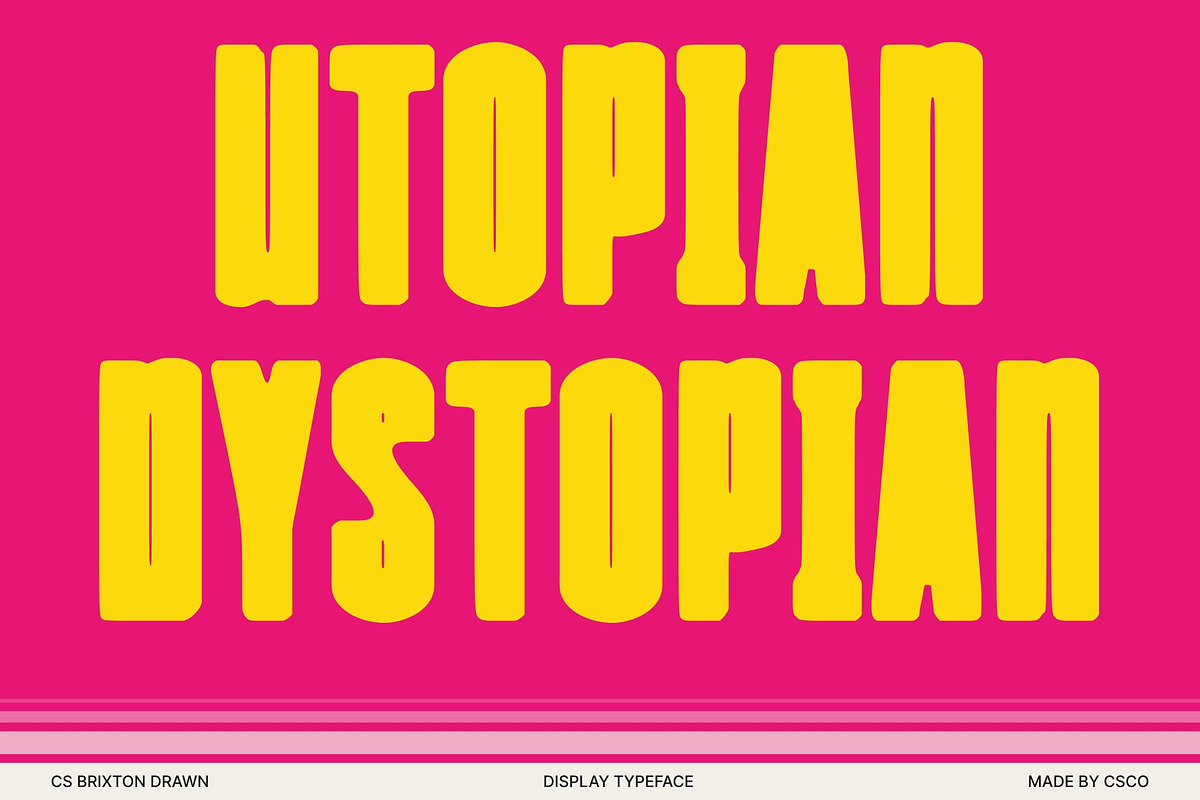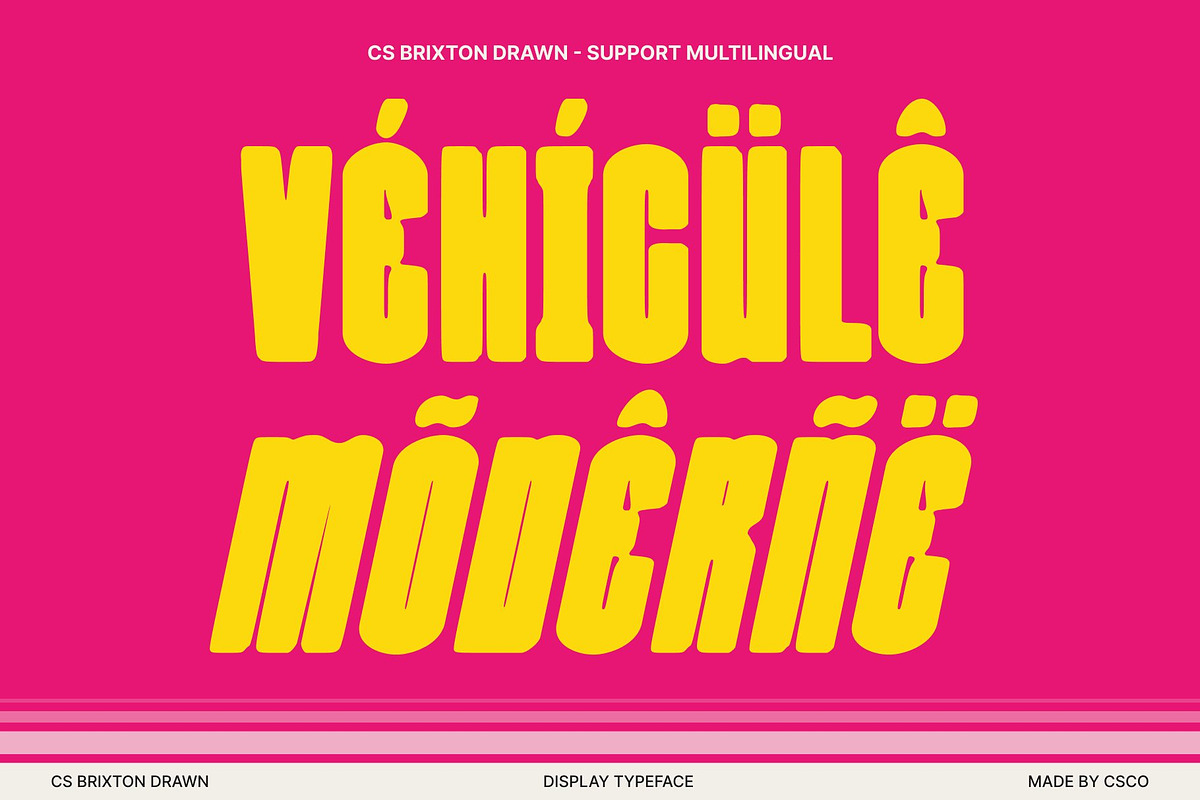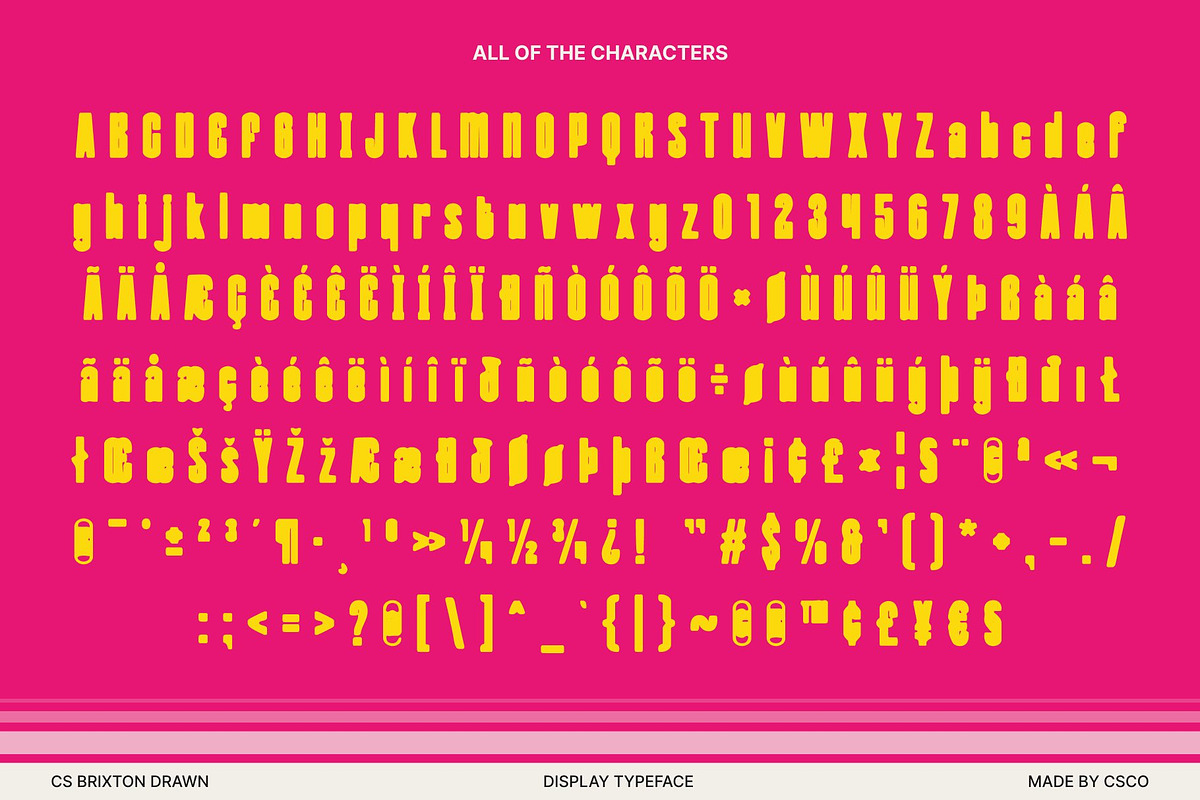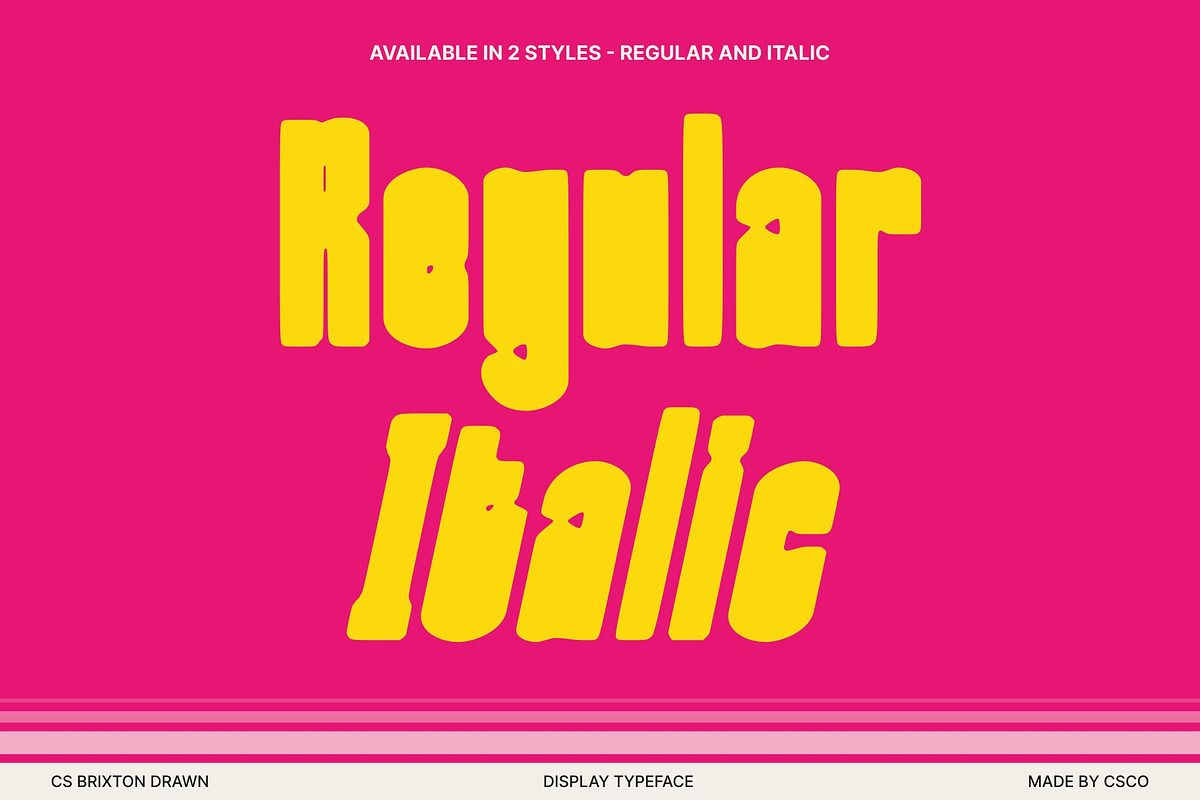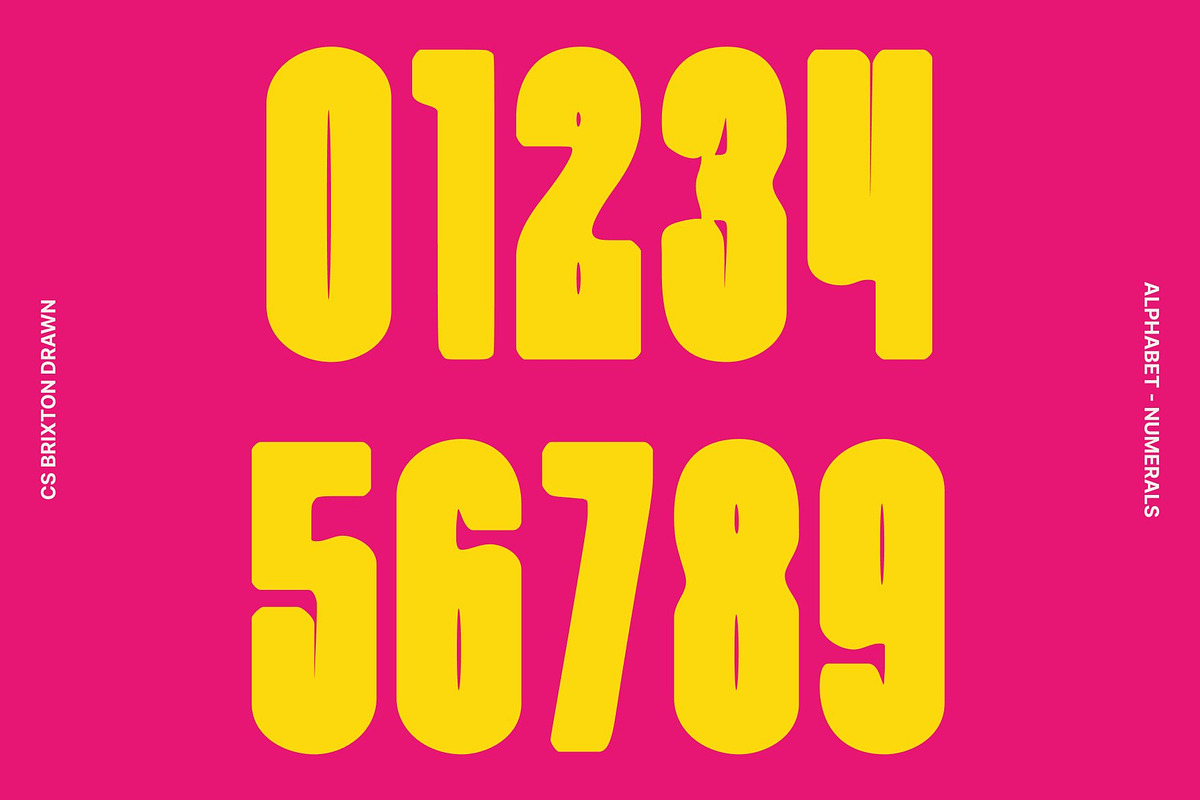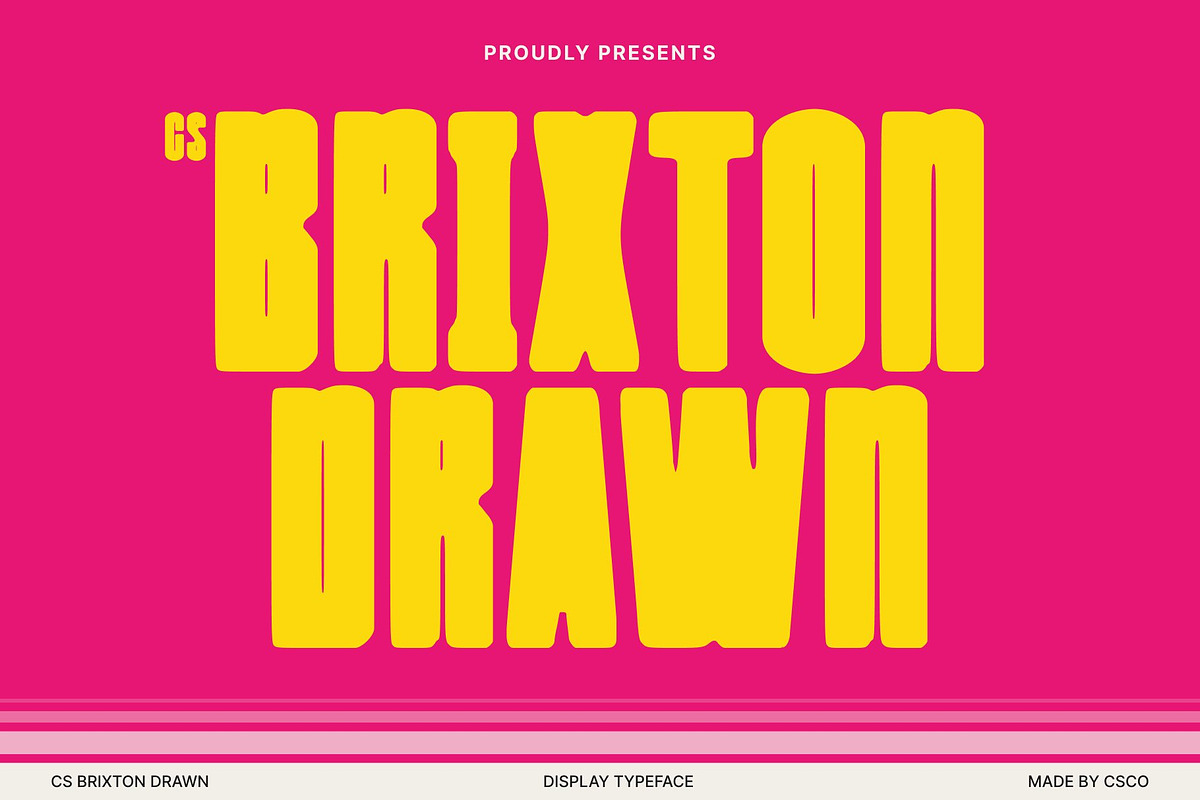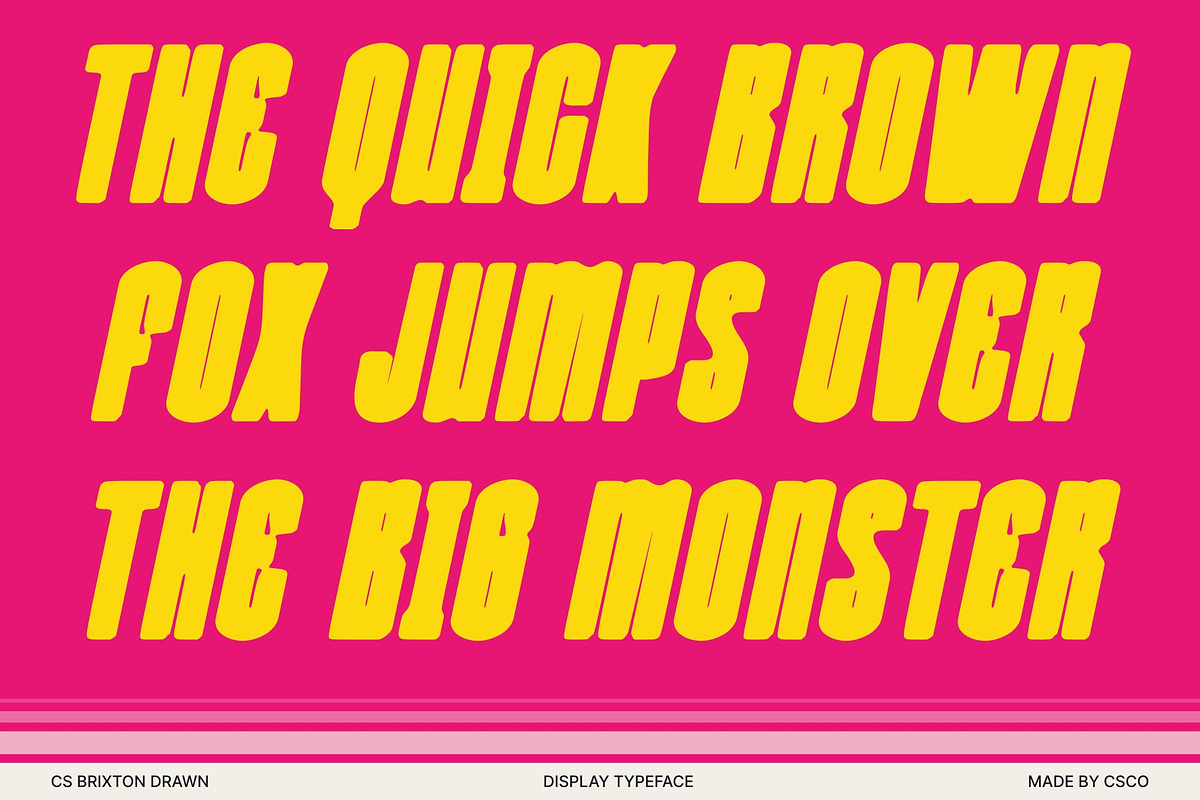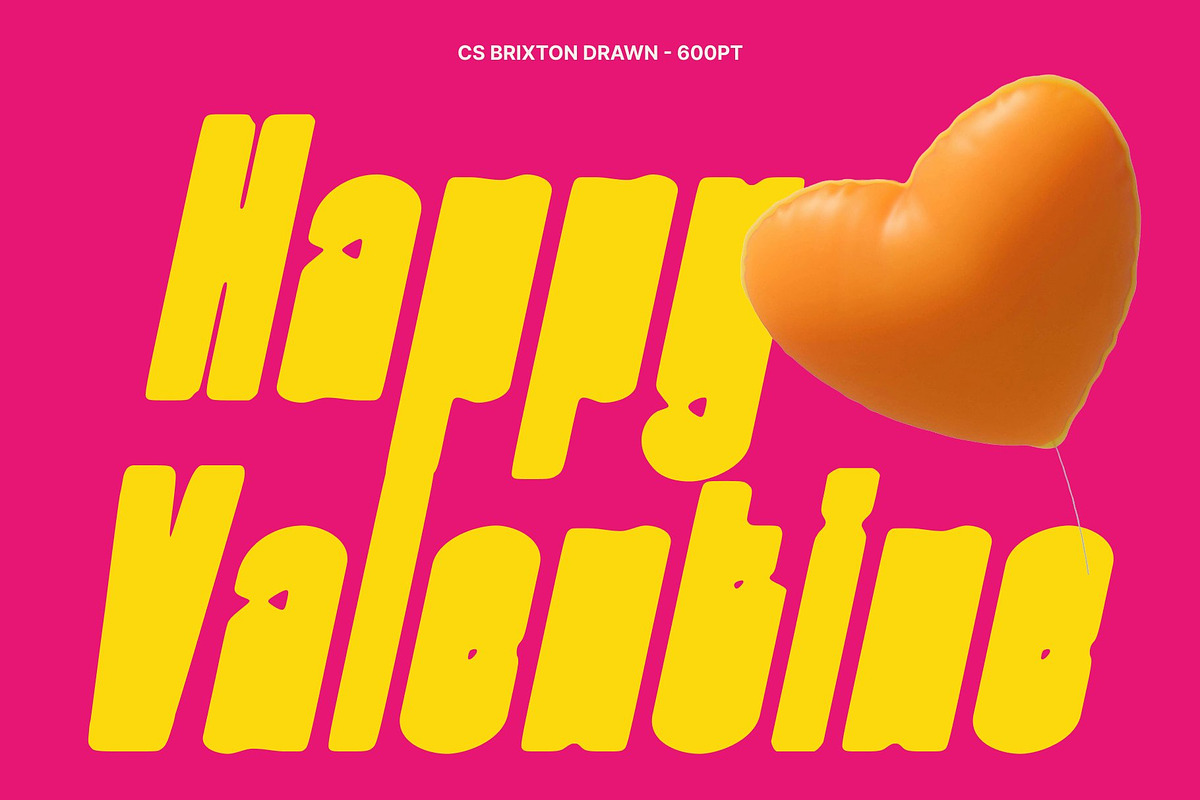
CS Brixton Drawn
CS Brixton Drawn – Bold Modern Sans Serif Font: Blocky, Confident, and Impactful
Confident Letterforms with a Modern Edge This is a bold modern sans serif font designed to command attention. Its clean, geometric letterforms combine contemporary style with a powerful presence, creating a visually striking typeface that is both professional and expressive. Perfect for headlines, branding, and creative projects, the font’s strong construction ensures clarity while making a memorable impression.
Sleek, Cool, and Distinctive What sets this font apart is its unique balance of boldness and sophistication. The tightly structured yet stylish characters give designs a modern, fashion-forward look, ideal for trend-conscious branding, social media visuals, and editorial layouts. Its carefully crafted forms convey professionalism while maintaining a fresh, cool aesthetic that stands out in any context.
Ideal for Eye-Catching Branding and Design From logos and product packaging to website headers and posters, delivers maximum impact. Its bold weight and clean lines ensure readability, while the distinctive shapes provide a creative twist that makes every design visually engaging and unique.
Versatile for Fashion, Digital, and Creative Projects This font a thrives in applications that require both style and authority. Whether for fashion campaigns, social media graphics, or high-impact promotional materials, this font brings personality, modernity, and bold visual appeal to every project, ensuring your designs are noticed and remembered.